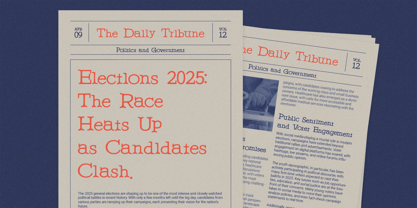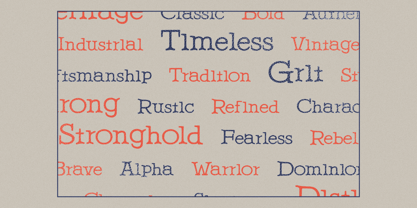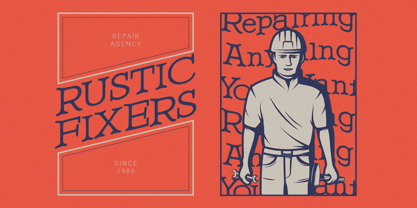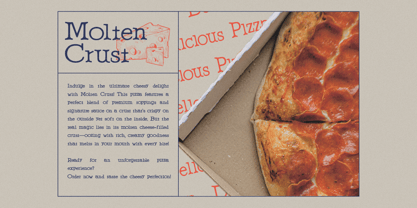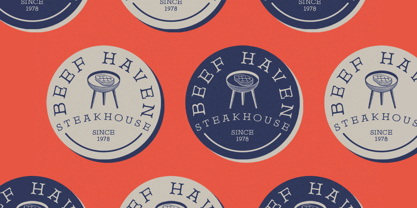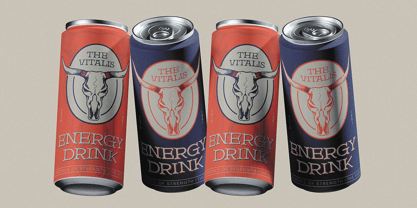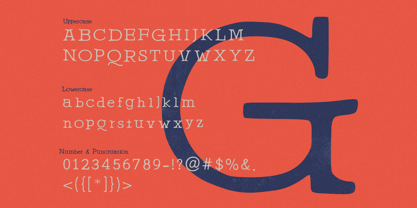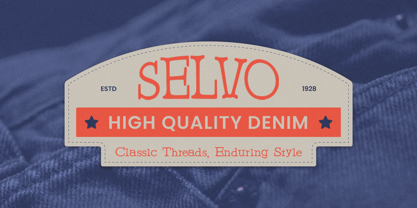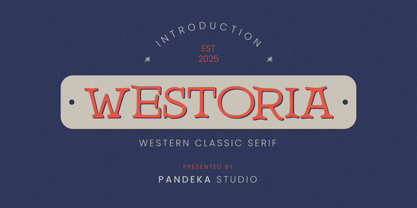
Westoria
por Pandeka Studio
La familia tipográfica Westoria fue diseñada por Sagara Nararya y publicada por Pandeka Studio. Westoria contiene 1 estilos. Más información sobre esta familia
Westoria – Western Classic Serif Typeface
Westoria is a bold serif font with a vintage Western aesthetic, perfect for cowboy-inspired designs, rustic branding, classic signage, and bold typography. Its timeless style brings an authentic, rugged charm to logos, packaging, book covers, and more.
Diseñadores: Sagara Nararya
Fundición: Pandeka Studio